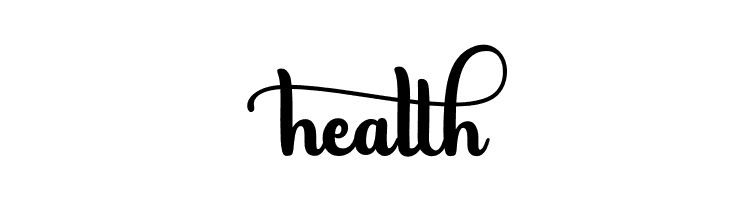
A graceful and fluid script font with elegant, flowing lines.
A whimsical, handwritten font with playful and artistic strokes.
A playful, bold script font with a handwritten style.